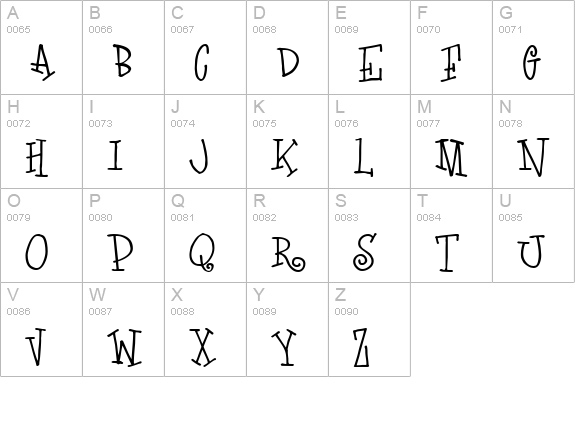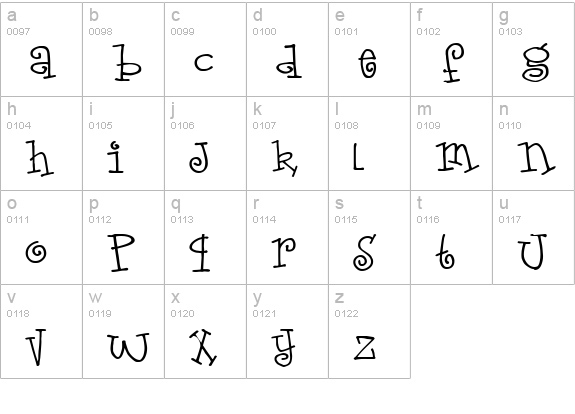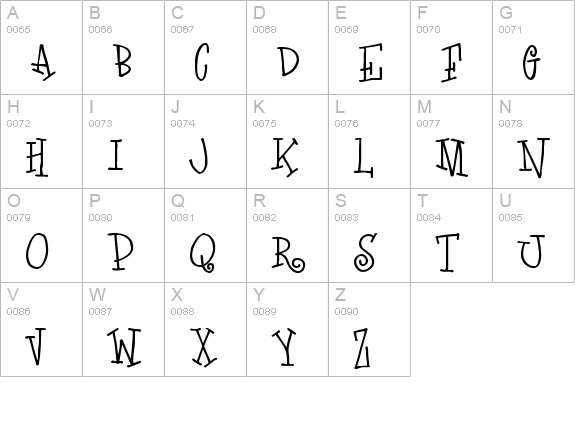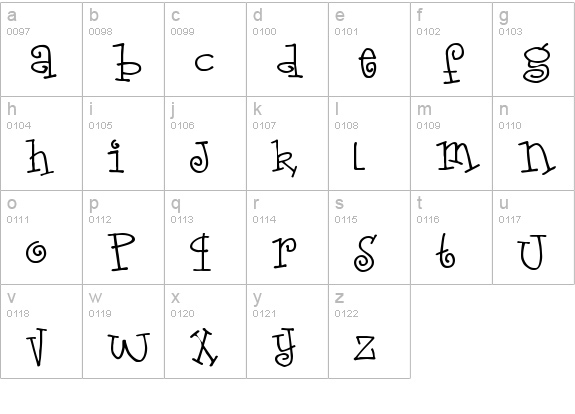
Love Letters Font Details
Introducing Love Letters font, a whimsical and romantic typeface perfect for adding a touch of love to your designs. This enchanting font features elegant handwritten letterforms that evoke a sense of warmth and nostalgia. Each character is crafted with care and attention to detail, creating a beautiful and unique look that will make your projects stand out. The Love Letters font is not only charming and versatile, but it is also free to download at FontsMarket.com. Whether you're designing wedding invitations, greeting cards, or social media graphics, this lovely font is sure to add a touch of romance to your creations. Let Love Letters font inspire your next project and bring a little love into your design work. Download it for free today at FontsMarket.com and start spreading the love with your typography.